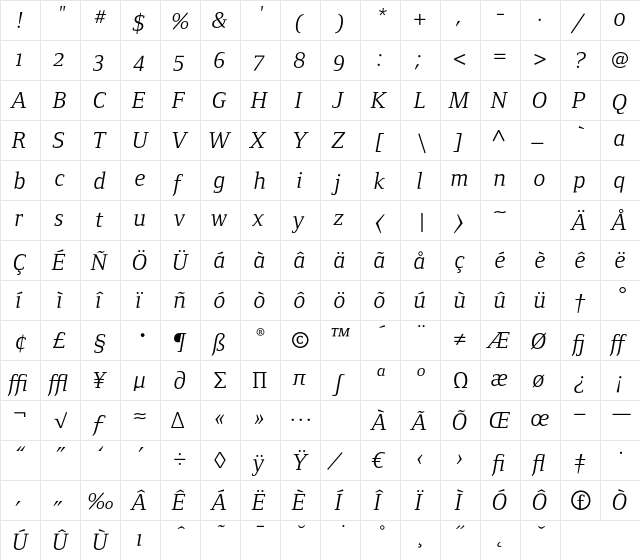
FoundryFormSerif ItalicOSF Font Preview
FoundryFormSerif ItalicOSF
Design Context for FoundryFormSerif Typeface
FoundryFormSerif carries the refined structure of traditional serif typography, with bracketed terminals and considered proportions that communicate credibility and craft. Its italic angle brings a sense of urgency and motion to the letterforms.
Pro Tip: Set FoundryFormSerif with slightly loose tracking in headlines to let each letterform's detail read clearly at display sizes.